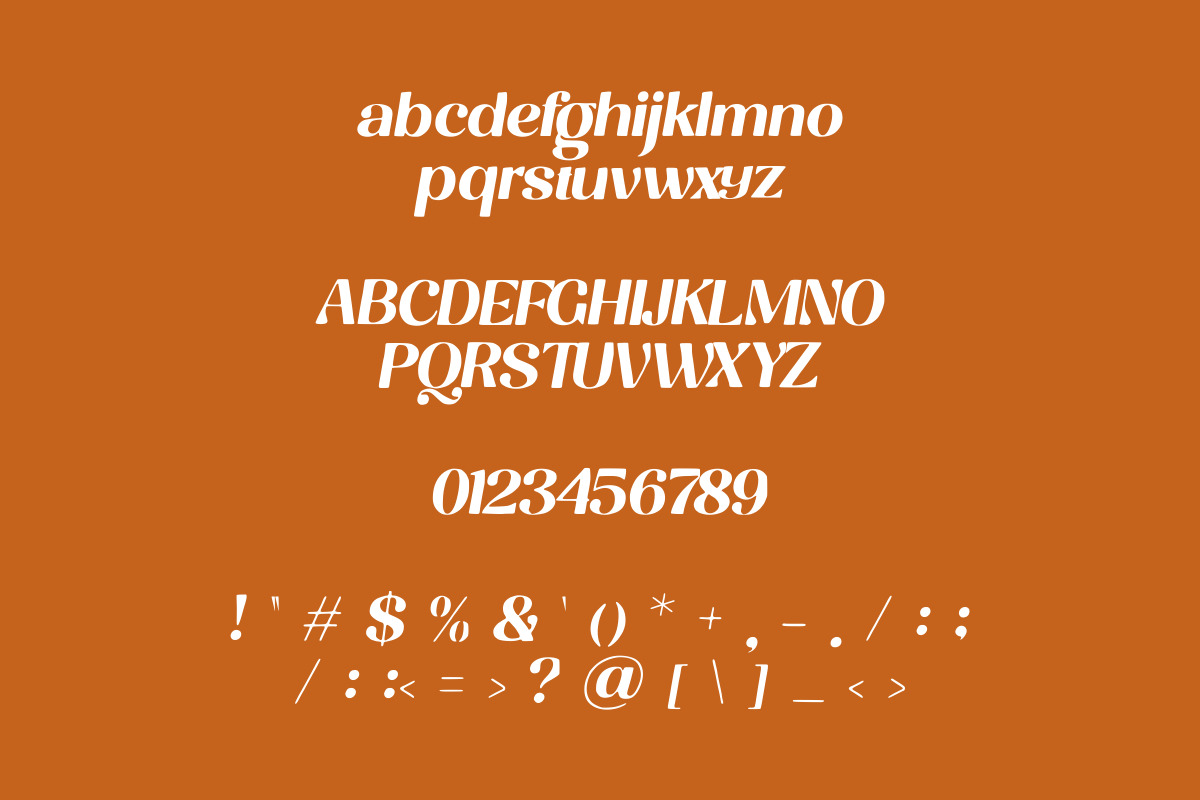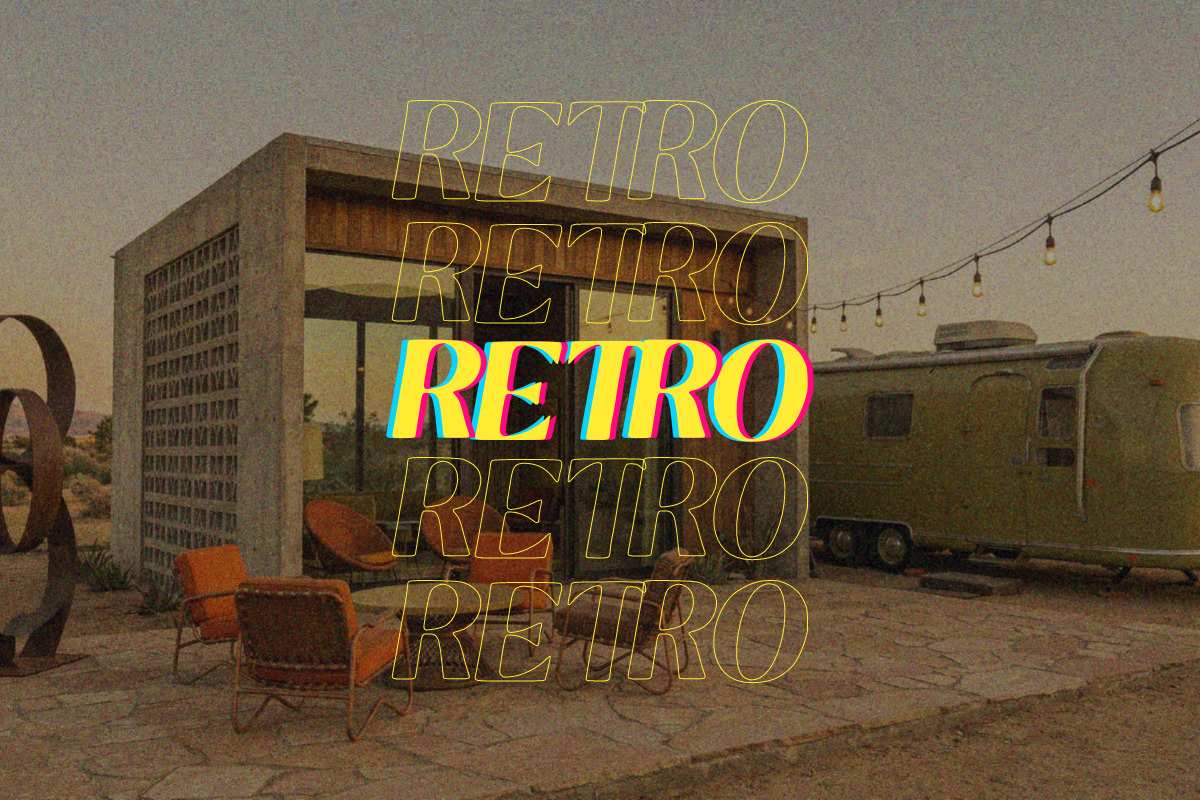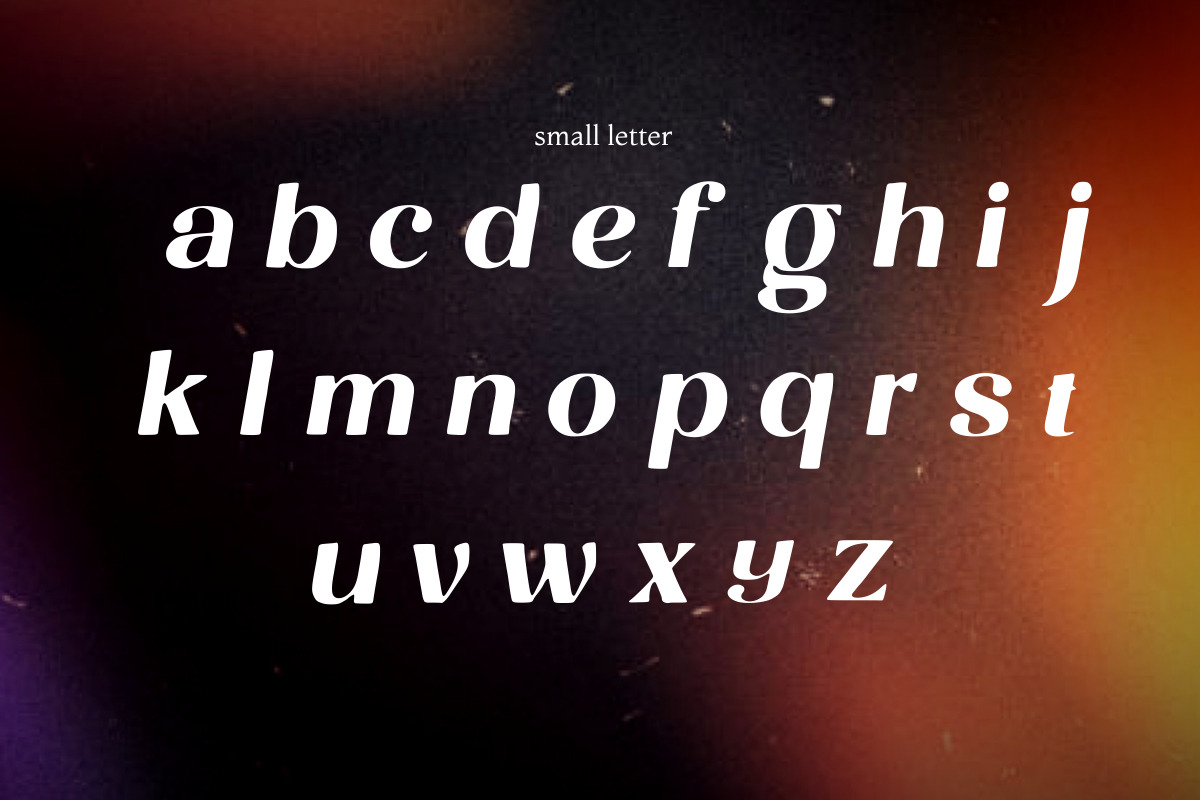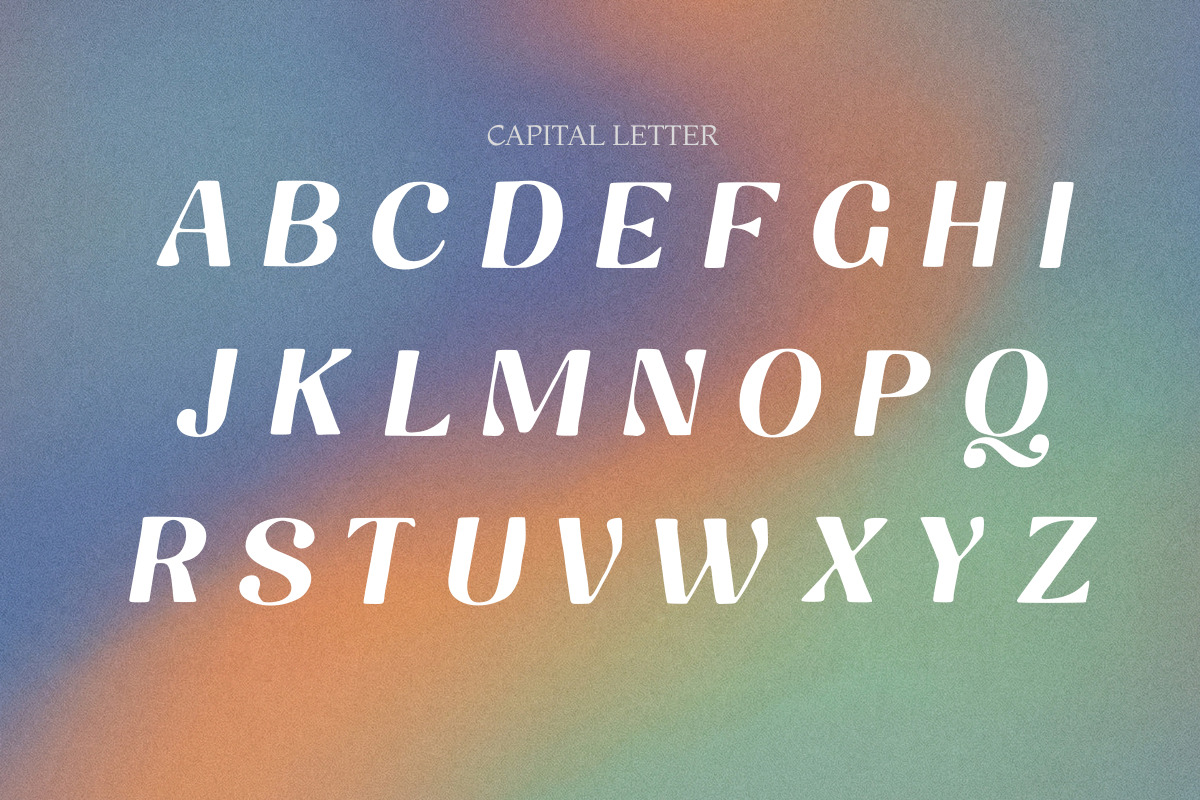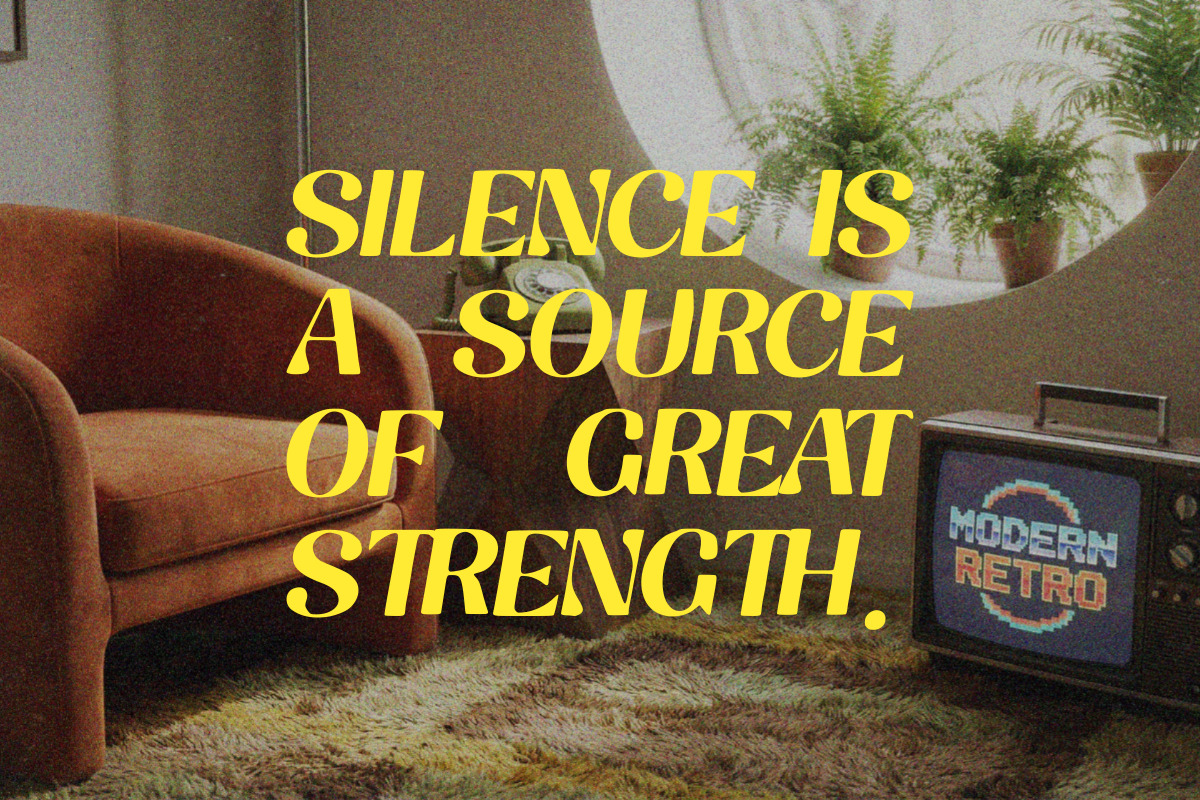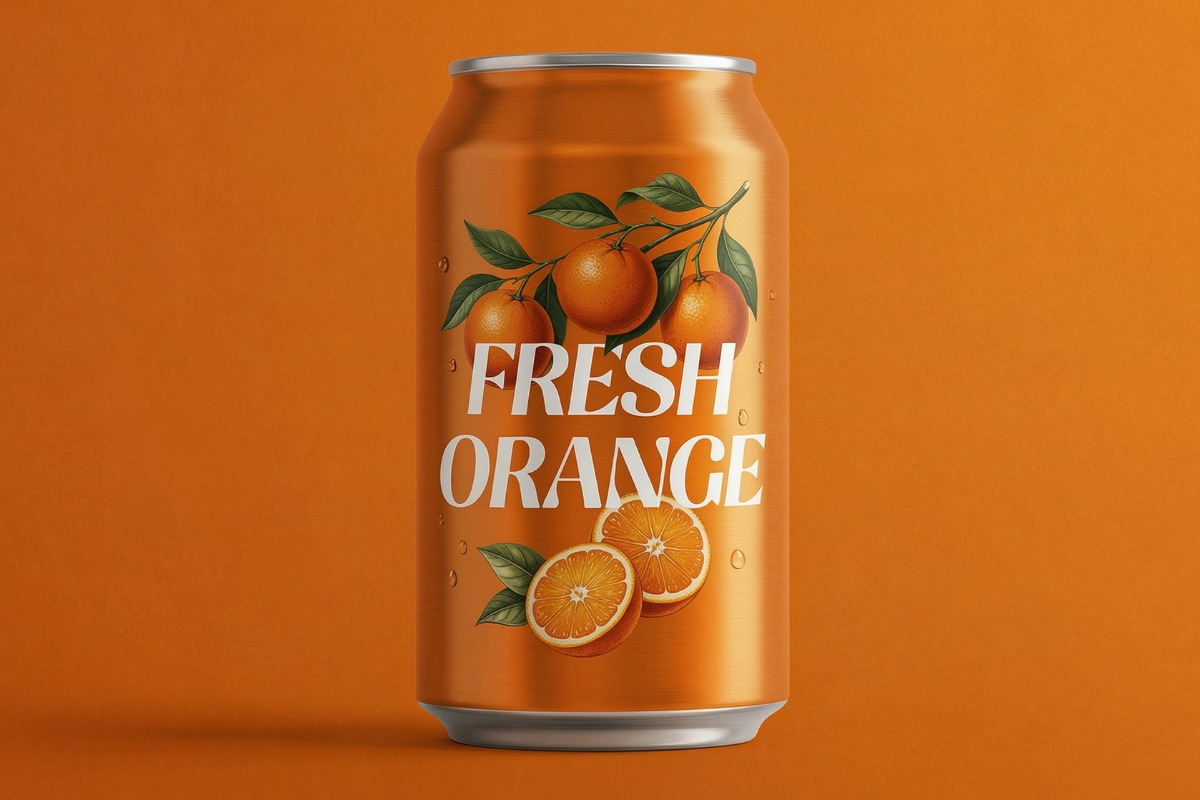
Retro Revival Choice Vintage Serif
Introducing the font with energy and purpose:
Meet The Retro Revival Choice — a bold, high-contrast vintage serif display typeface that blends the golden era of 1960s–70s graphic design with modern usability. Whether you're designing a striking product label, a retro-themed poster, a bold brand identity, or editorial layouts, this font delivers character and confidence in every letter.
With its dynamic italic stance, sharp serifs, and expressive letterforms, The Retro Revival Choice captures the timeless energy of classic American and European display typography — reimagined for today's design world.
Why Designers Love This Font
• High-contrast thick-and-thin strokes give every word a premium, editorial feel
• Bold italic style adds motion and energy — perfect for headlines and hero text
• Unique letterforms (especially Q, G, and lowercase g) make it instantly recognizable
• Clean, consistent construction ensures readability even at large display sizes
• Equally stunning in ALL CAPS, Title Case, or mixed lowercase
• Product packaging and beverage can labels
• Retro brand identities and logo design
• Poster and music event artwork
• Magazine headlines and editorial layouts
• Social media graphics and digital advertising
• T-shirt and apparel graphics
• Vintage-inspired restaurant and cafe branding
• Signage and storefront lettering
• Single style — bold italic display weight, optimised for headlines and large-scale use
• No additional weights, obliques, or alternate variants — what you see in the previews is exactly what you get
- Is this font suitable for body text?
- This is a display font, best used at heading sizes (24pt and above). For body copy, pair it with a clean sans-serif like Futura, Helvetica, or Montserrat.